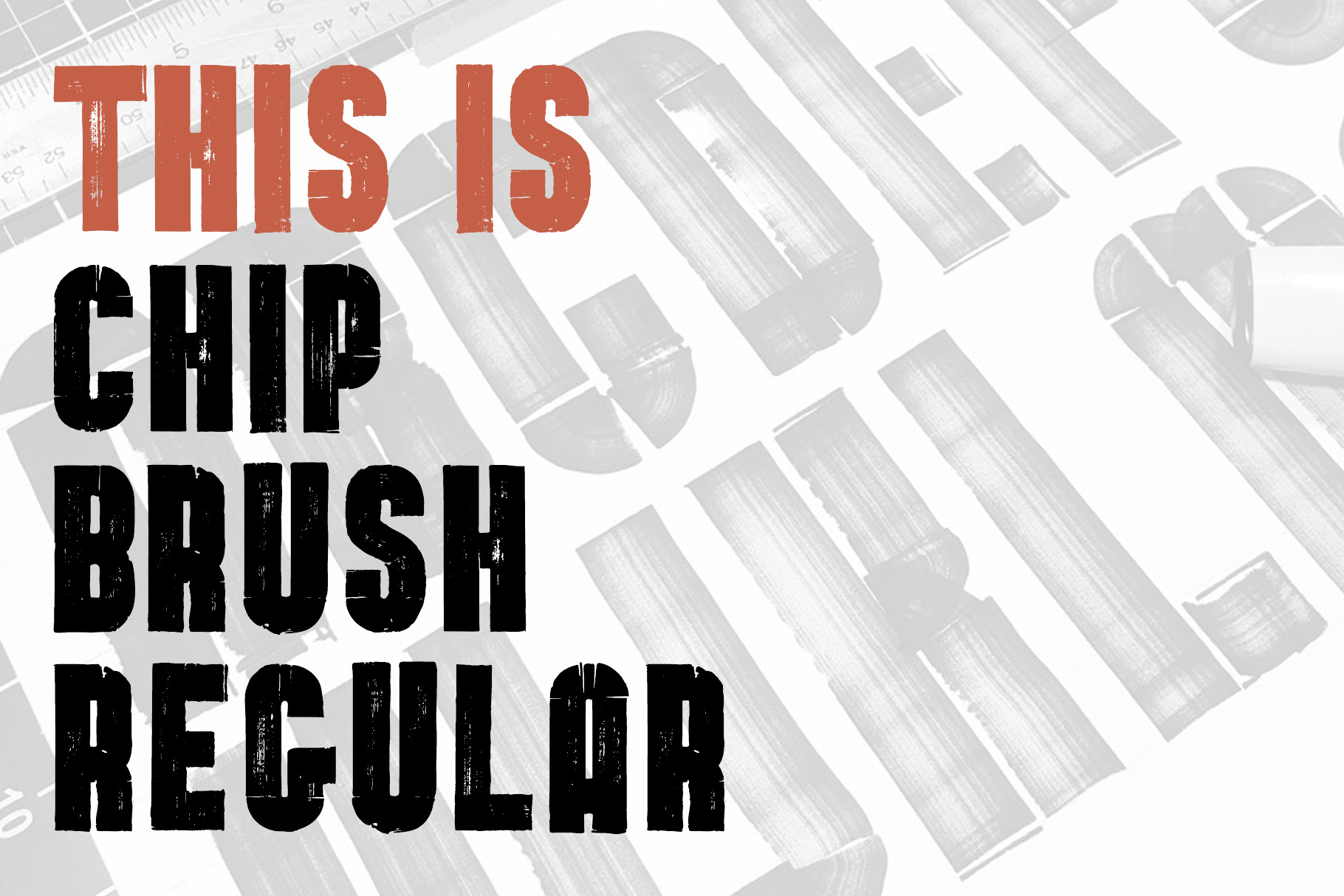
Chip Brush Regular - Brush Font
Chip Brush Regular is a hand lettered display font. Made by hand with a full set of standard characters or numbers, Chip Brush Regular is loaded with an authentic texture and personality.
It's bold and unapologetic, and ready for your next design.